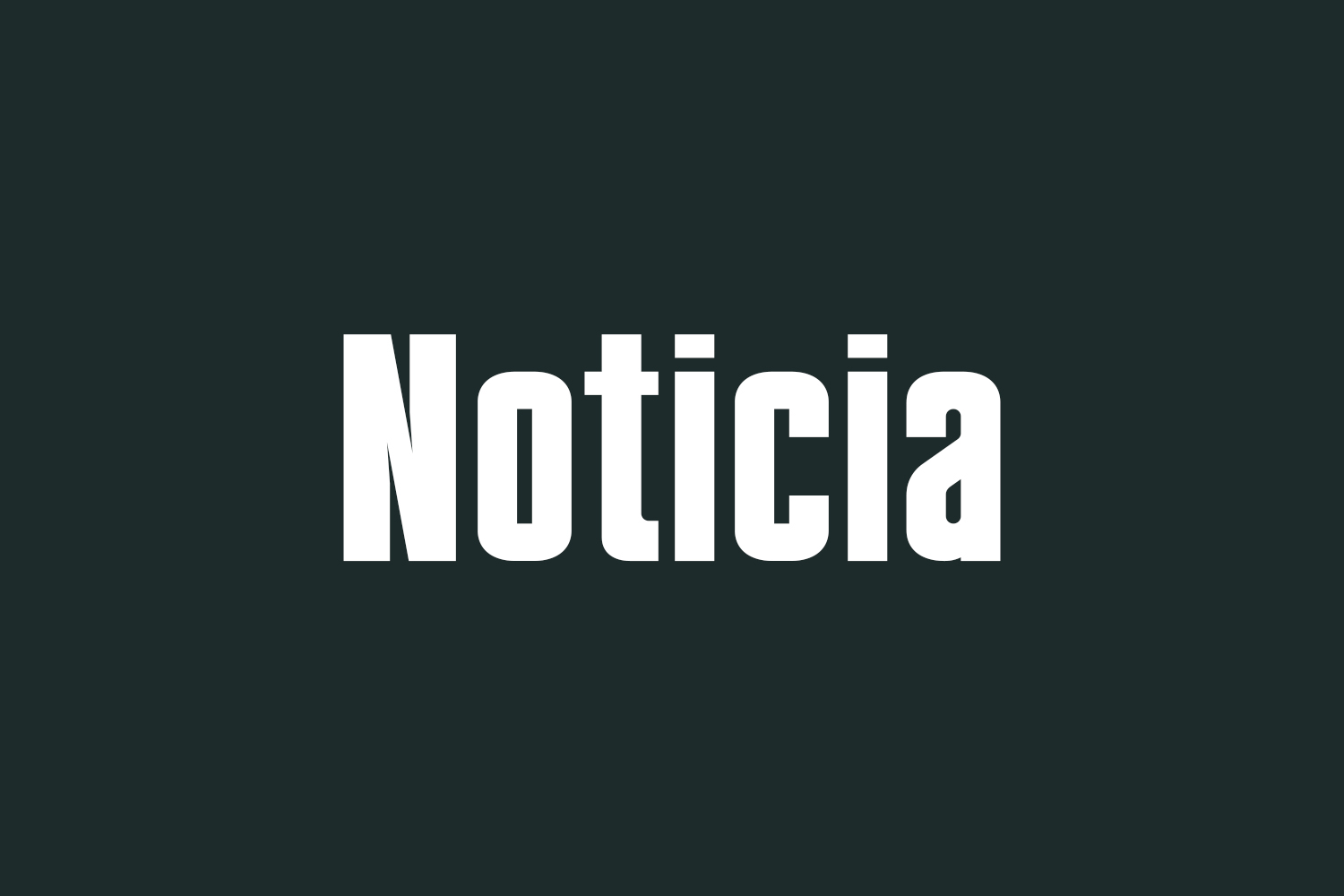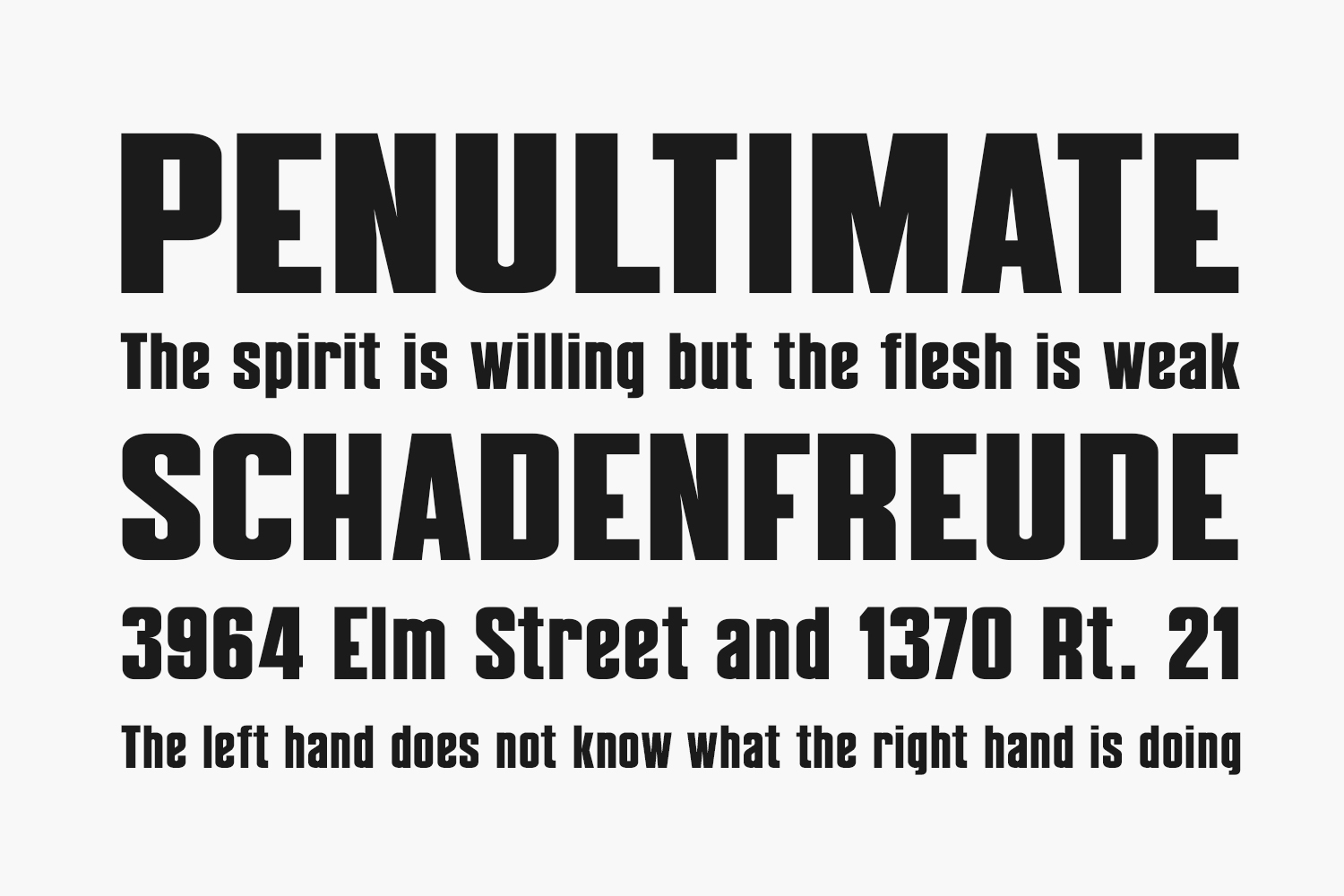
Noticia Free Font is a cool, bold, and simple lettered display font. This font is ideal for writing web designs, business cards, or pretty much anything else that requires a unique touch. Noticia Free Font was designed by Don Marciano and is free for personal use only. Please purchase the full version for commercial use.